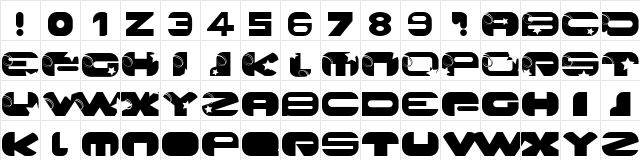
Galaxy Regular Free Font
Galaxy Regular
Foundry: PYRS Fontlab Ltd. / Made with FontLab
Designer: Frank van Deursen
Galaxy Family
Design Context for Galaxy
Galaxy is a composed and adaptable typeface that performs quietly and consistently across a wide range of design contexts.